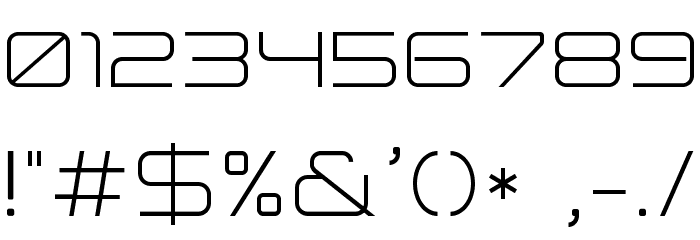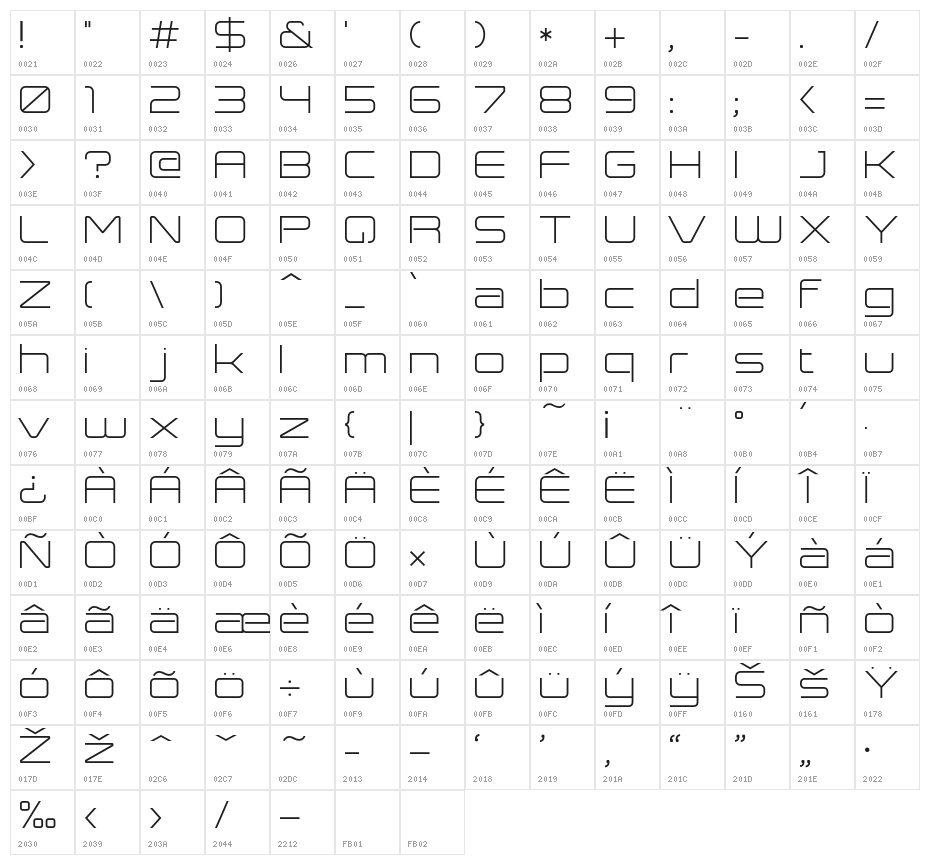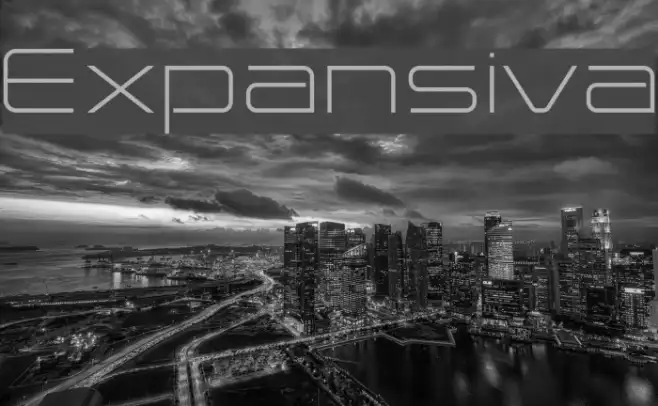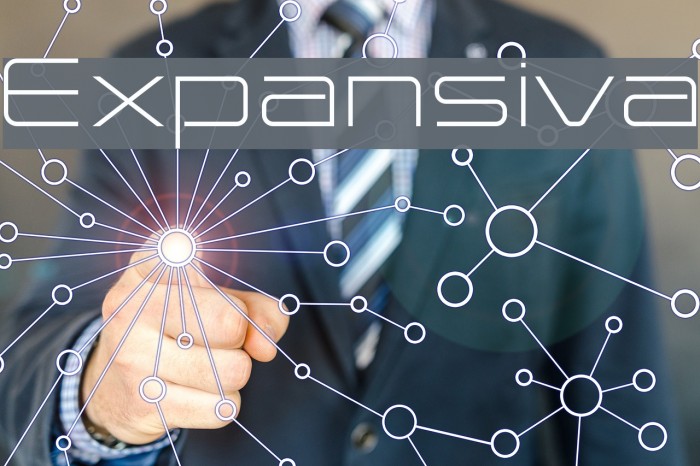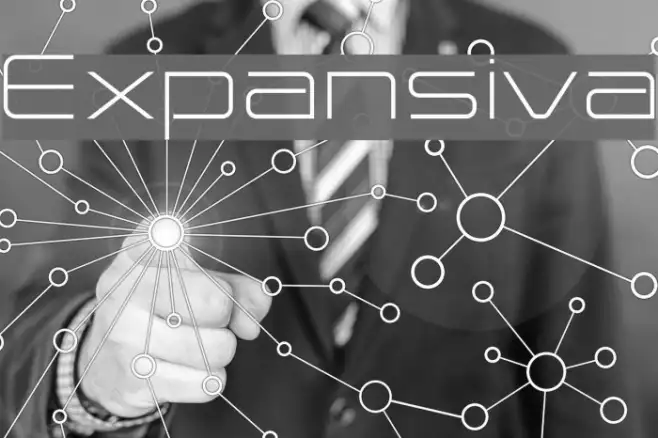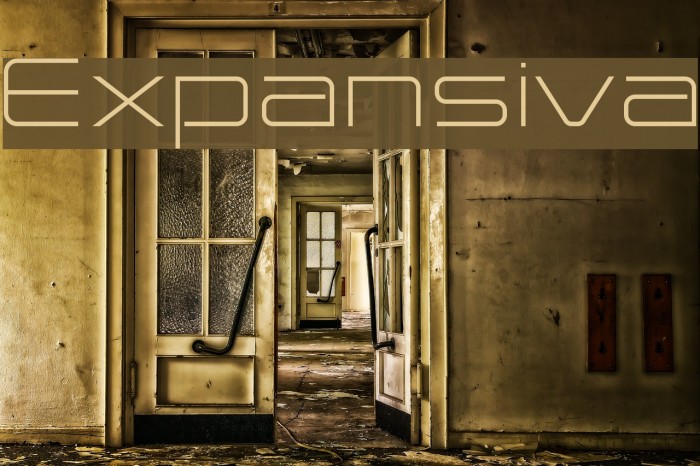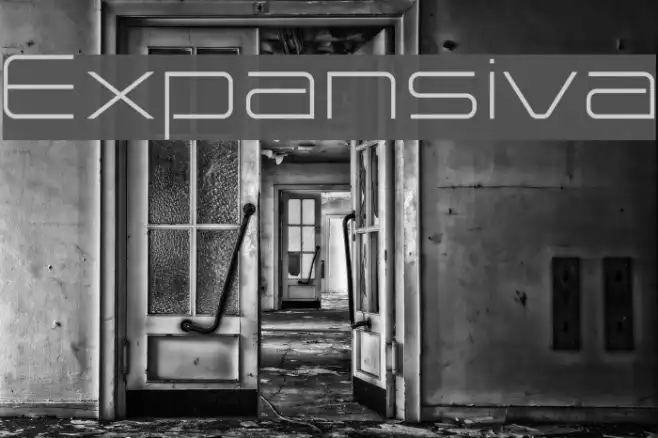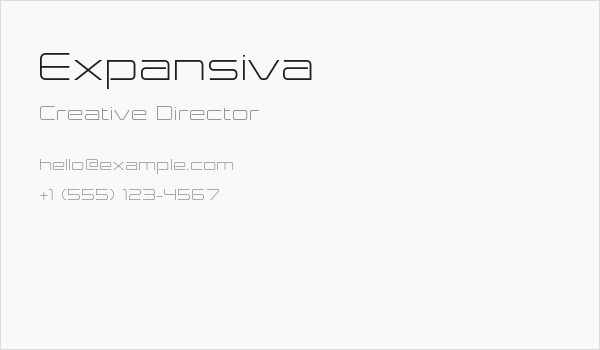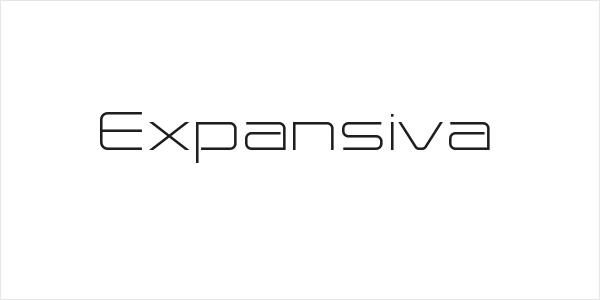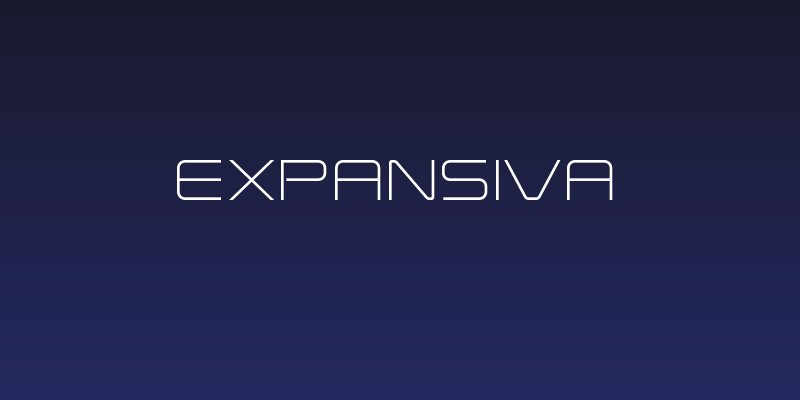
Expansiva Font
Expansiva Description
This font features a modern, geometric design with clean lines and a futuristic aesthetic. The characters are constructed with a uniform stroke width, giving it a sleek and streamlined appearance. The uppercase and lowercase letters maintain a consistent height, contributing to a harmonious and balanced look. The numerals and special characters are designed to match the overall style, ensuring visual coherence across all elements. The font's minimalistic and contemporary feel makes it suitable for a variety of design applications.
| Proposed Projects | Ideal for technology branding, modern web design, and futuristic posters. |